Font choice sets the mood and shapes how people read a design. Sans-serif fonts are a popular choice because they are simple and easy to read. They work well across digital and print media, making them a safe option for many projects.
This collection includes free sans-serif fonts for web design, branding, and UI projects. Some are built for headlines, others for body text or UI work. The styles vary from minimal to bold, so there’s something here for most design needs.
You will find fonts perfect for headlines, body text, or UI design. These fonts aren’t just beautiful, they’re versatile and can be used across various design contexts, from print to digital.
For freelancers, hobbyists, or professionals, this collection provides sans-serif fonts that can improve any design project. Whether you’re designing a logo, website, mobile app, presentation, or social media post, font choice is essential.
Fivo is a display font family with multiple weights, from bold to extra black. It works well for titles and branding.
Confine is a bold sans-serif font with strong characters. Step outside the ordinary and use this sans-serif in your next brand design project.
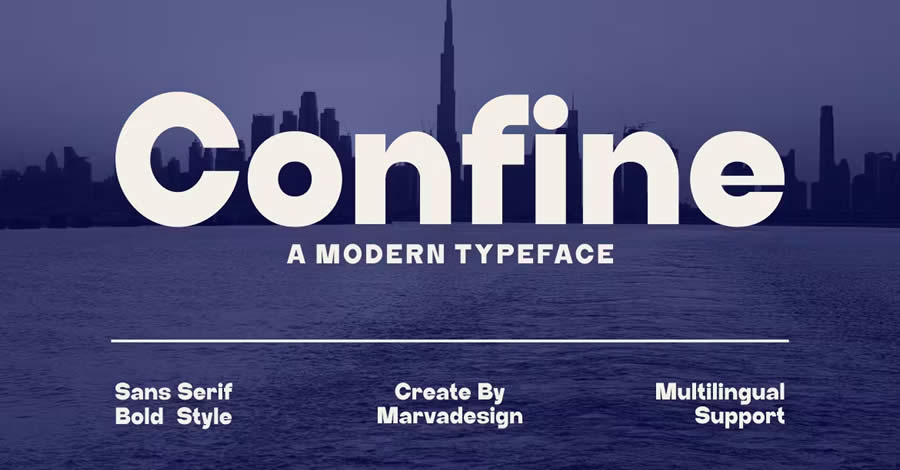
The Kelson family offers nine free fonts with numerals, punctuation, and multilingual support. It works well for readable web copy and headlines.
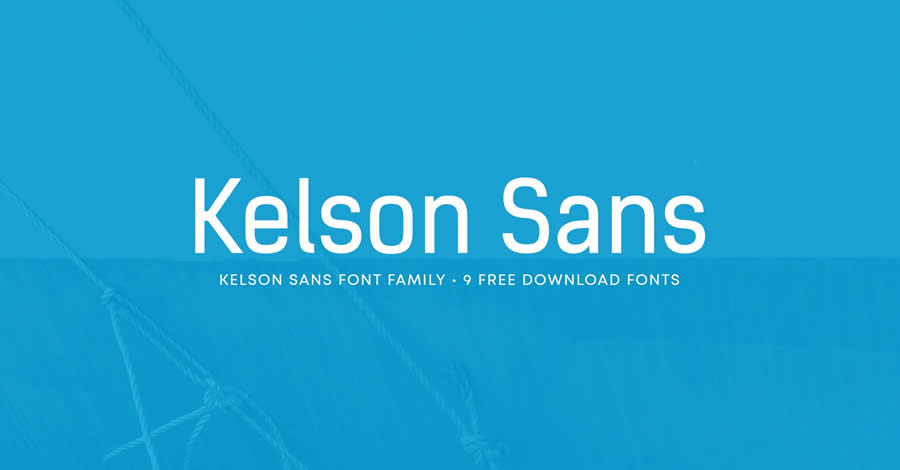
Bourbon Grotesque has a retro feel with a touch of modernity. As a free, all-caps font, it has a distinctive vintage aesthetic that is perfect for branding and logo design.
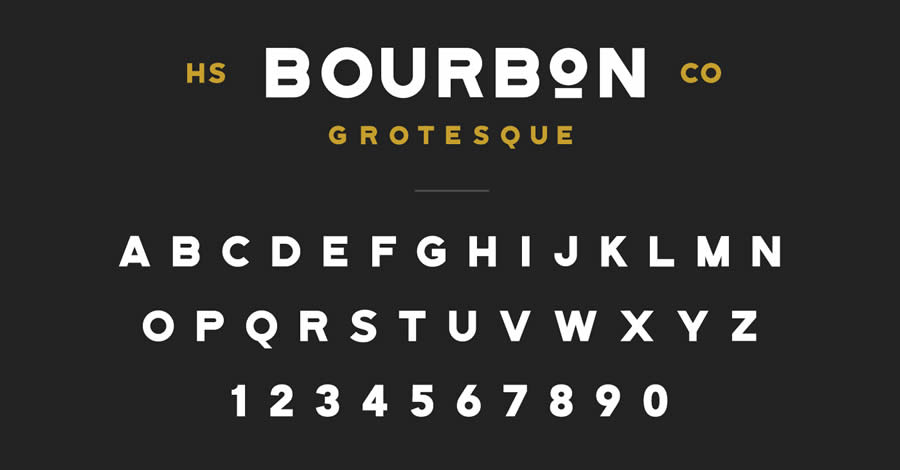
Rosity is a sans-serif typeface that blends clean and crisp lines with sophistication. It uses simple shapes and even spacing, which makes it a good fit for headings and brand work.
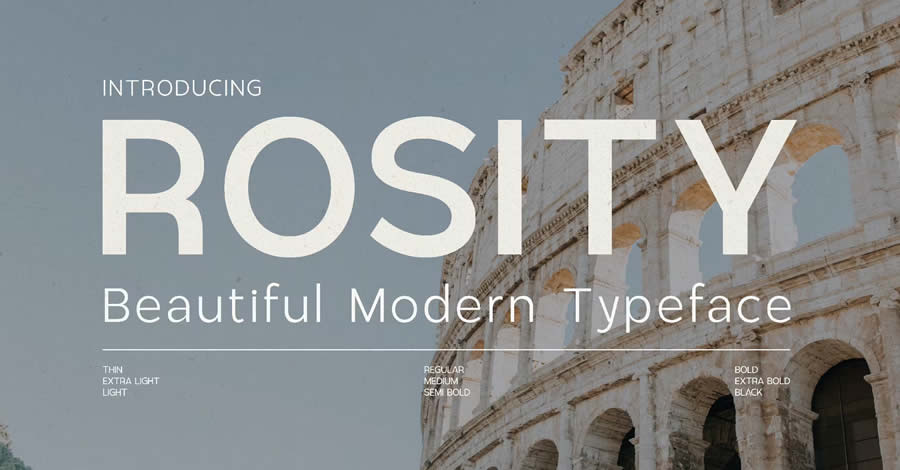
Airone’s free, extra-bold sans-serif style adds a bold statement to any design. It is ideal for larger titles and headlines.
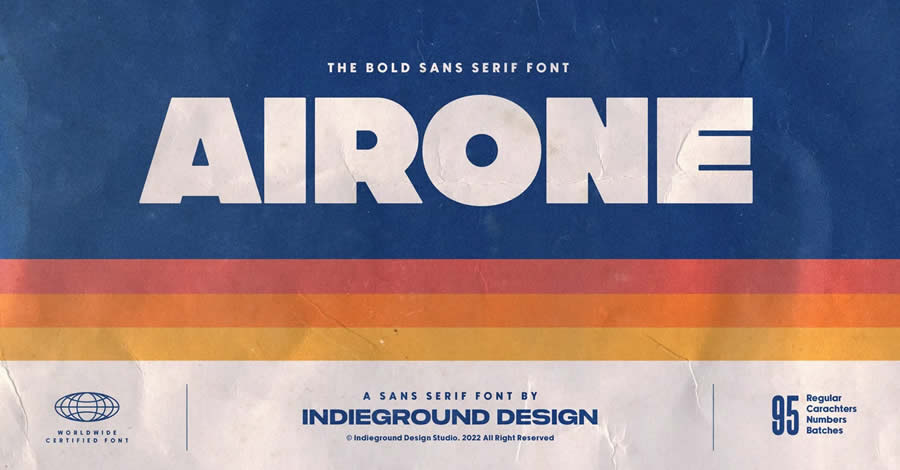
JUST Sans’s clean and simple design makes it an excellent fit for a wide range of projects. This font deserves a spot in everyone’s font collection.
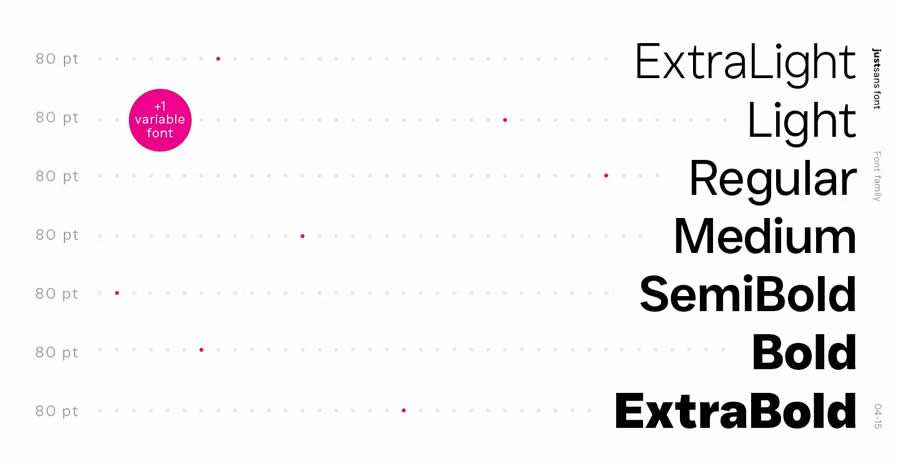
Rostack is a bold and condensed font with solid strokes and compact letterforms. It works well for headlines, titles, or any design that needs a bold, consolidated style.
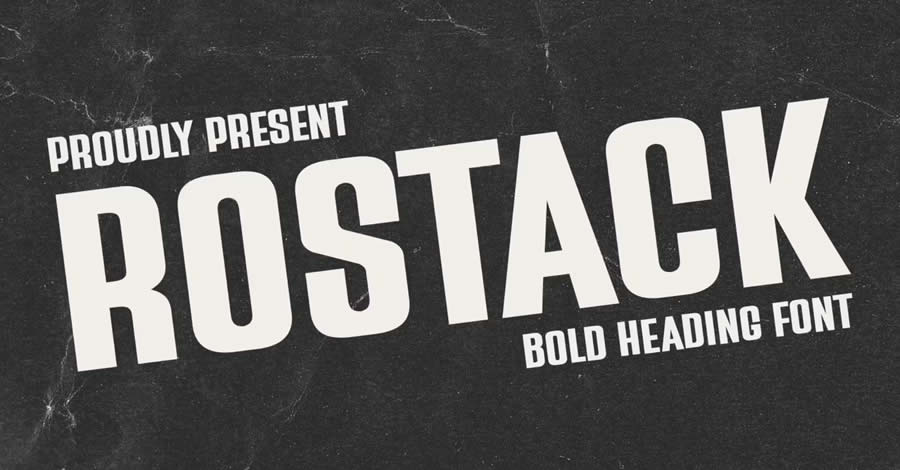
Nexa is a geometric sans-serif typeface family that offers plenty of variations to make your typography stand out. Even though it’s bold, it’s perfectly legible, so it’s a good fit for the web, too.
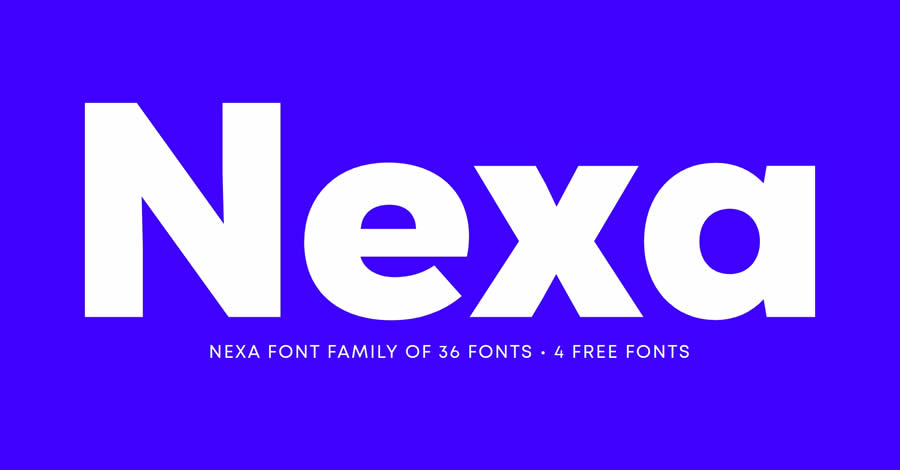
IBM champions innovation and cosmopolitanism, so it’s no surprise that its official font, IBM Plex, reflects those values. This font family offers extensive multilingual support, including Arabic and Hebrew.
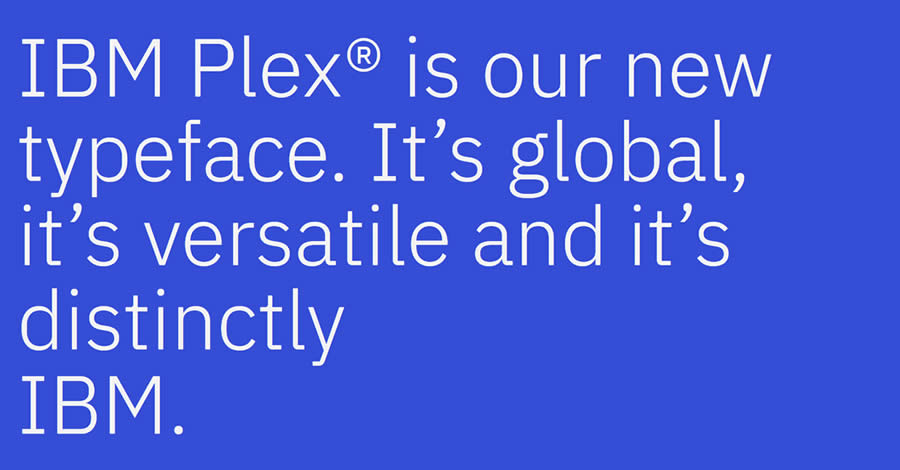
Designed for the French Centre National des Arts Plastiques, Faune is a font family that offers both sans-serif (Faune Text) and script (Faune Display) variations. Both fonts are incredibly versatile and well-suited to a wide range of design projects.
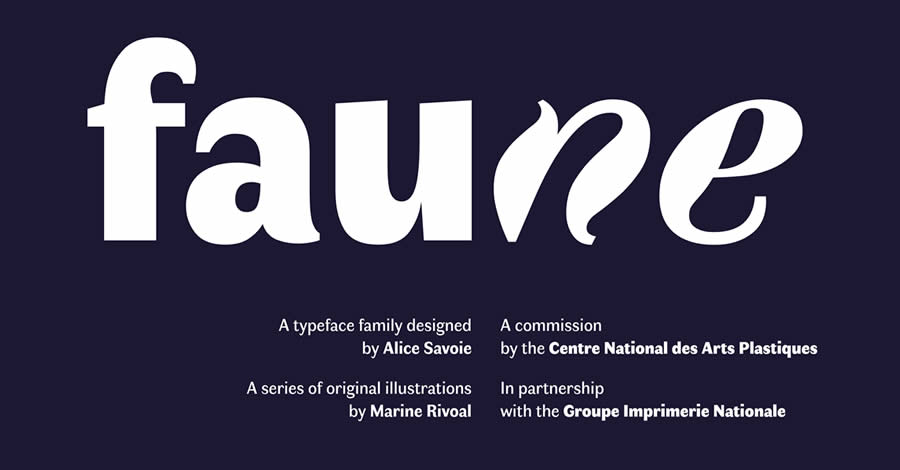
Fira Sans was designed for screen use. It includes multiple weights, italics, and strong language support.
Alegreya Sans HT blends humanist typography with modern readability. The bundle includes 28 fonts, including extra bold and extra bold italic, and comprehensive multilingual support. It’s the complete package for any design project.
Peace Sans is a friendly, approachable font. Its curves ensure readability on both small and large displays.
Mohave, initially an all-caps sans-serif typeface, has evolved into a complete font family. It now includes four weights (light, regular, medium, and bold) each with matching italics. Its neutral character shapes make Mohave ideal for branding materials and web displays.
Neris is a sans-serif font designed for display and shorter paragraphs. It breaks away from the traditional sans-serif fonts with slanted lines and unique curvature.
Try Dense for improved legibility and a streamlined design. This sans-serif typeface offers three weights: thin, regular, and bold. Bold excels on large displays, while thin and regular are work well for web copy.
The elegant Canter sans-serif font combines bold lines and sharp turns, offering six display styles, including 3D, shadow, and outline. It’s ideal for headlines, posters, and branding materials.
Contemporary and bold, Sabado is a sans-serif font family that works well for display design. It offers two styles: Sabado regular and Sabado italic. This font will add a unique touch to your projects.
Geometry is perfection, and Rhyder captures this with its nature-inspired design. This geometric sans-serif font works well for both display and text.
Conclusion
The right sans-serif font depends on how it will be used. Some work better for headlines, while others are built for long-form text or UI.
A good font choice makes content easier to read and helps shape the overall design. Testing a few options is often the best way to decide. Keep a small set of reliable fonts on hand and build from there.